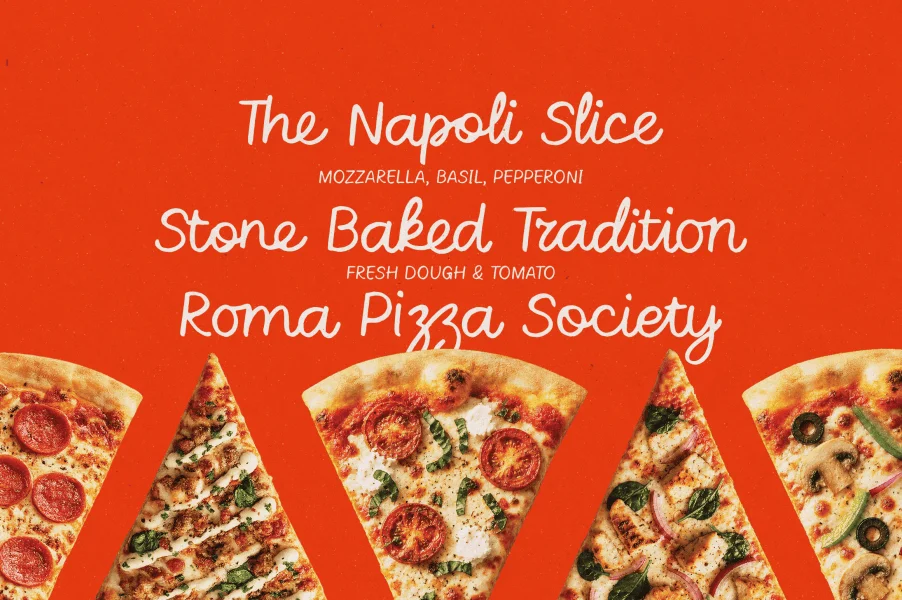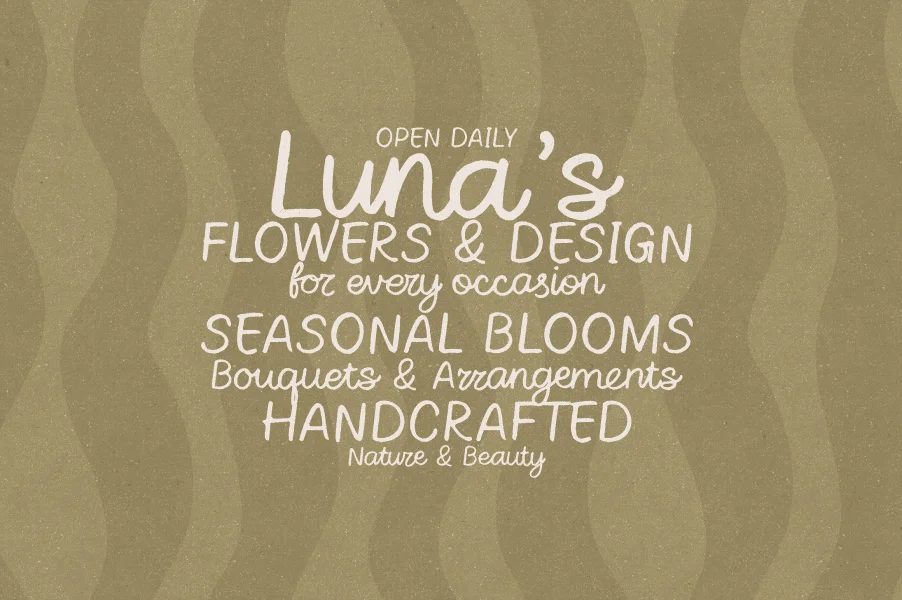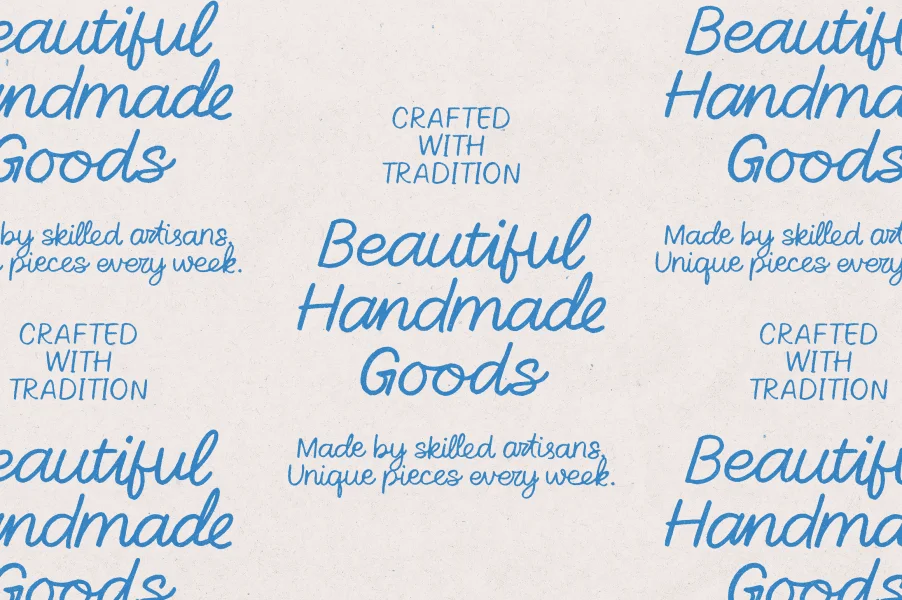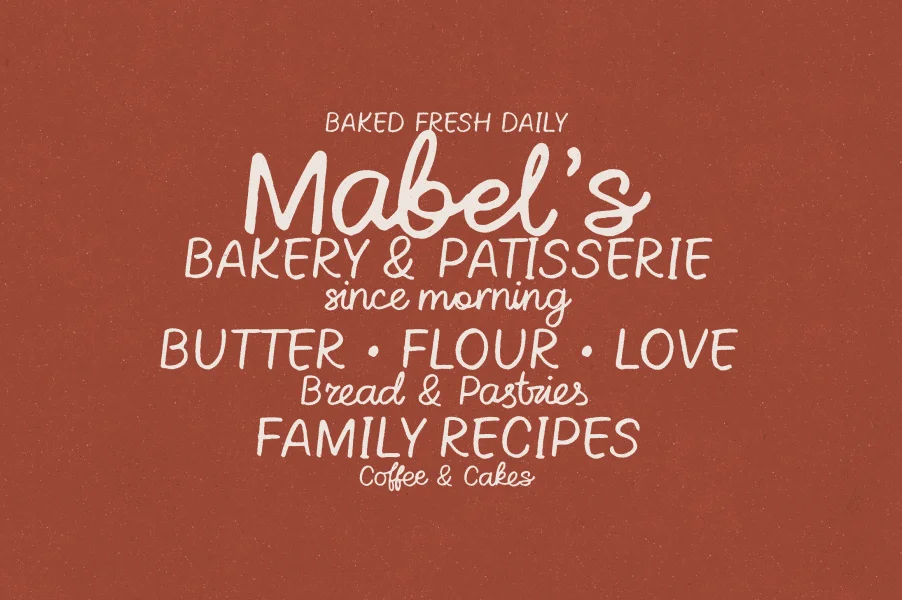
Meet Newstalgia, an authentic handwritten typeface designed to capture the warmth, charm, and personality of real handwriting. Inspired by handwritten notes, vintage journals, cozy cafés, boutique branding, and nostalgic storytelling, Newstalgia brings a naturally human touch to every project.
Crafted with attention to detail, this versatile script combines effortless readability with organic imperfections, creating typography that feels genuine, approachable, and full of character. Whether you're designing logos, packaging, social media content, book covers, invitations, restaurant menus, or lifestyle branding, Newstalgia delivers a timeless handwritten aesthetic that feels both modern and nostalgic.